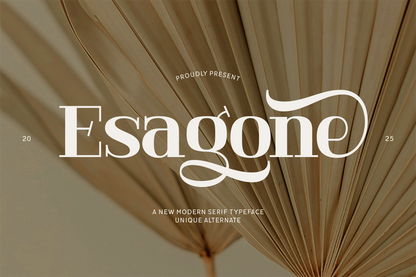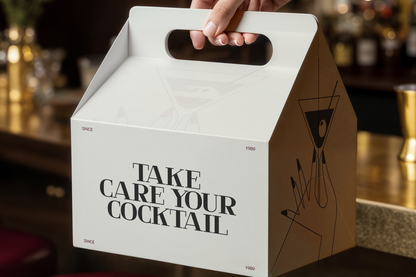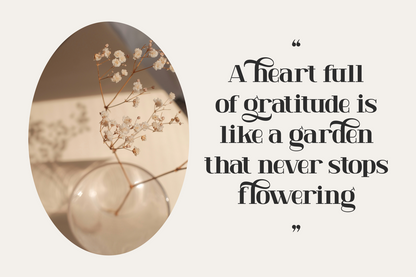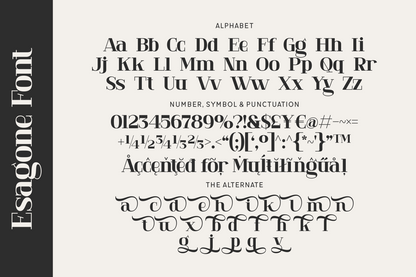
Esagone is a modern serif typeface with stunning alternate characters and graceful ligatures. The balance between clean cuts and flowing swashes makes it ideal for branding, magazine titles, wedding designs, and upscale packaging. Esagone’s versatility allows it to stand boldly on its own or enhance minimal design with a luxurious flourish.